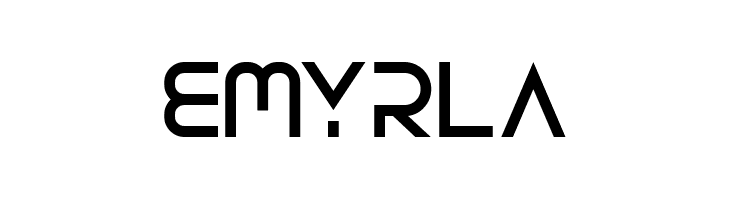
A bold, geometric font with a modern and artistic style.
A modern, geometric font with bold, clean lines and sharp angles.
A bold, angular font with a modern, geometric style.
A bold, angular font with a futuristic and geometric style.